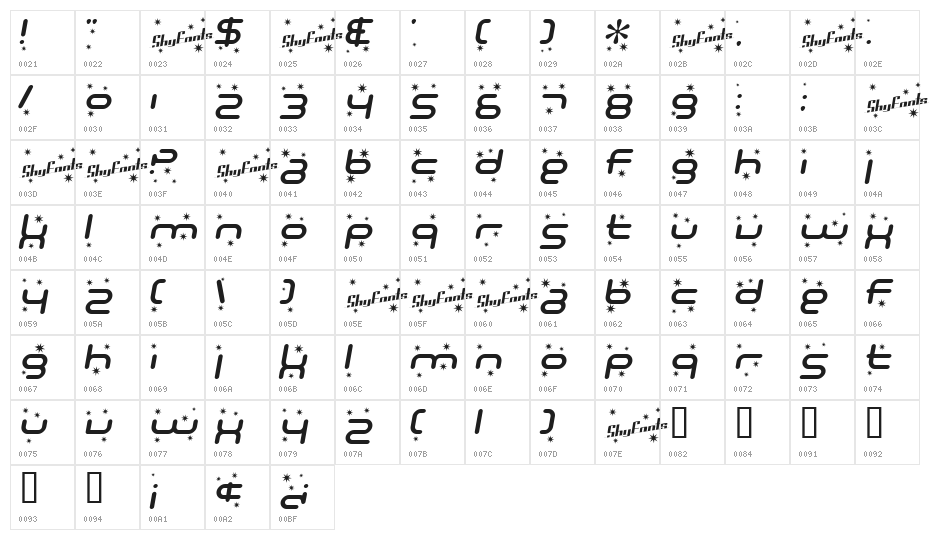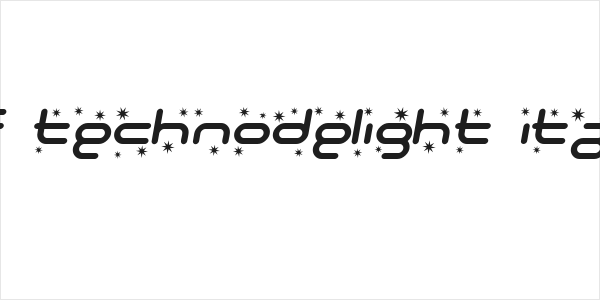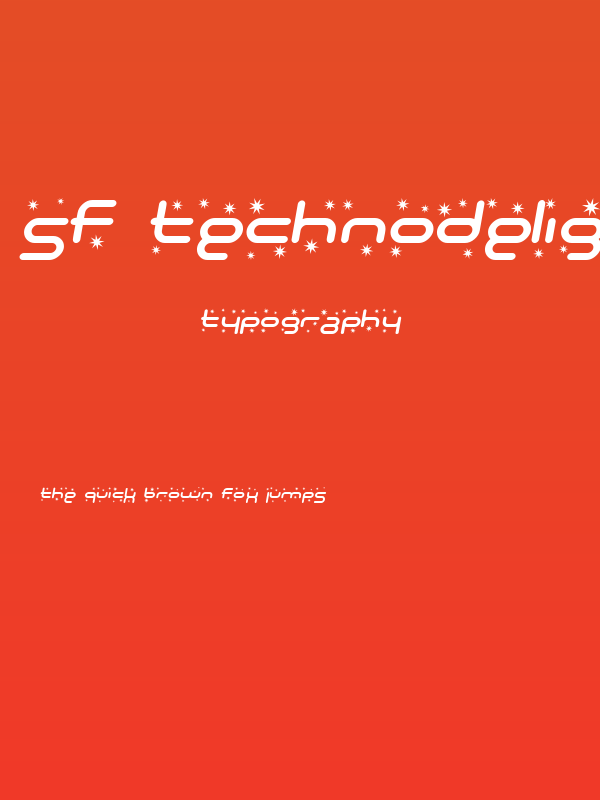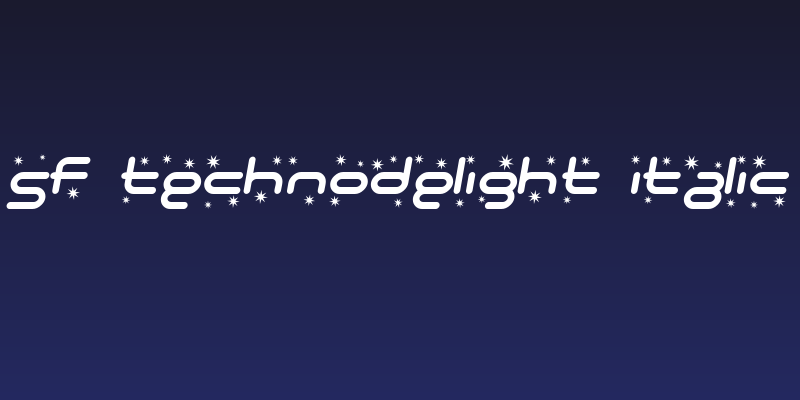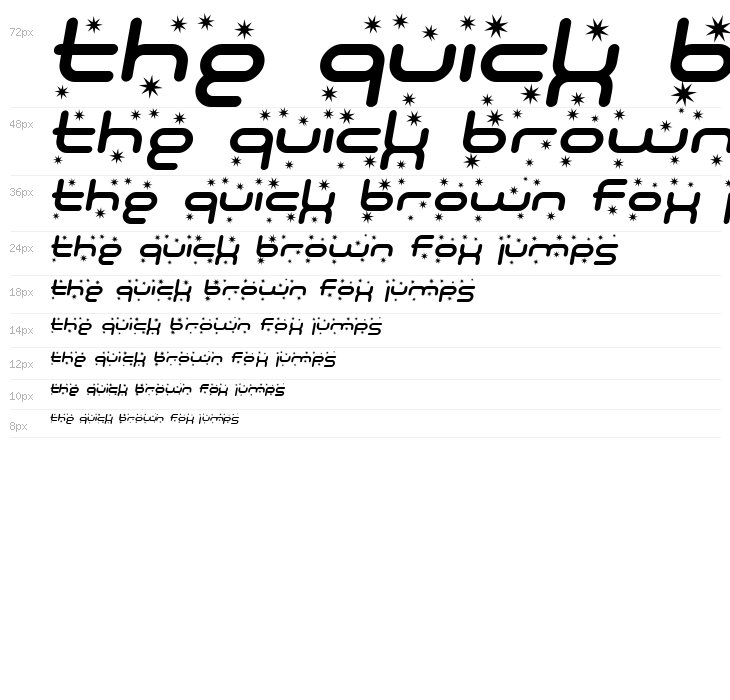
SF Technodelight Italic Font
SF Technodelight Italic Description
This font presents a futuristic and sleek design with a distinct italic slant, giving it a dynamic and forward-moving appearance. The characters are rounded with a consistent stroke width, contributing to a modern and streamlined look. The font includes a full set of uppercase and lowercase letters, numbers, and a variety of special characters. The spacing between characters is normal, ensuring readability while maintaining its unique style. The font's design is accentuated by its smooth curves and minimalistic structure, making it suitable for contemporary and tech-oriented projects.
| Use Case | Logos, Headlines, Digital interfaces |
| Proposed Projects | Ideal for tech branding, digital interfaces, sci-fi themed designs, and modern advertising. |